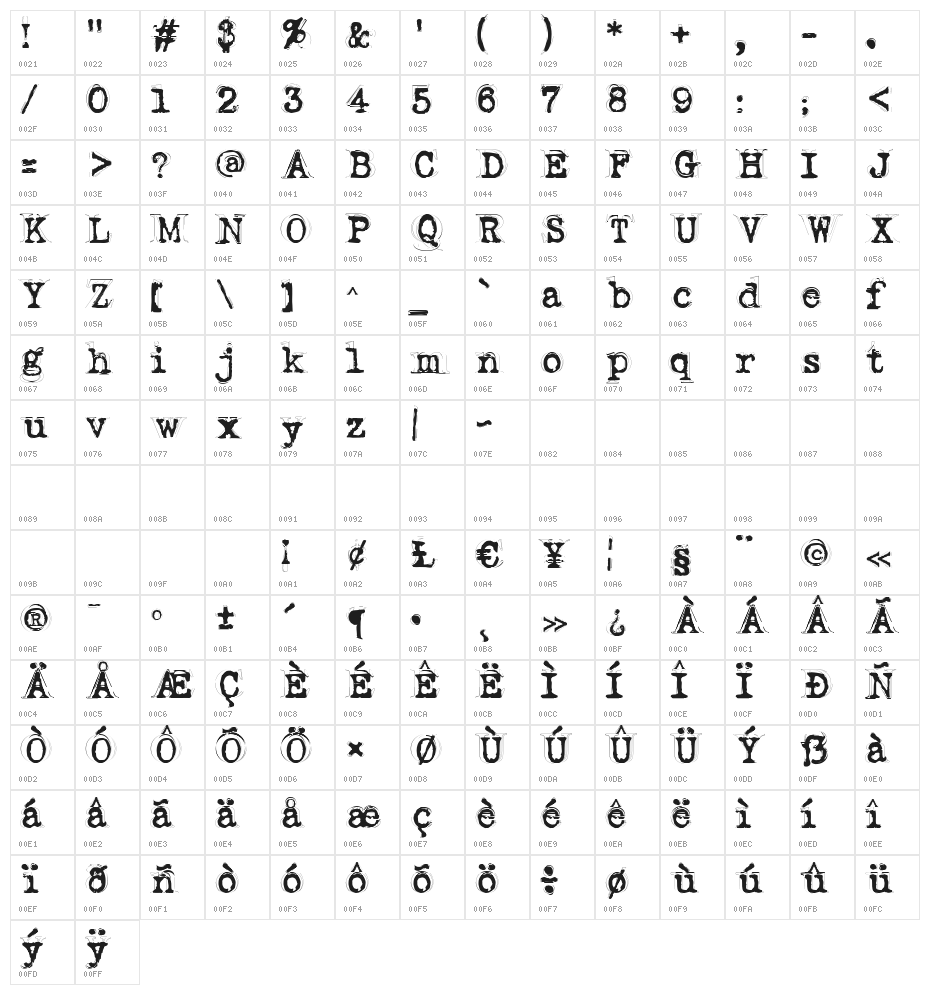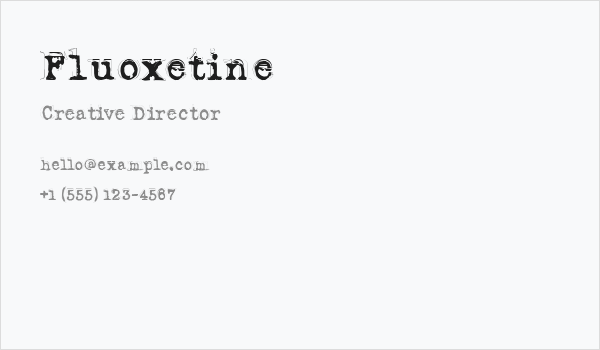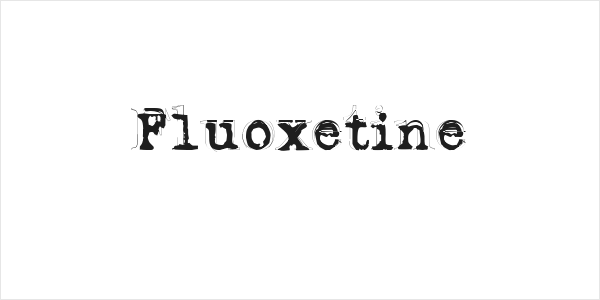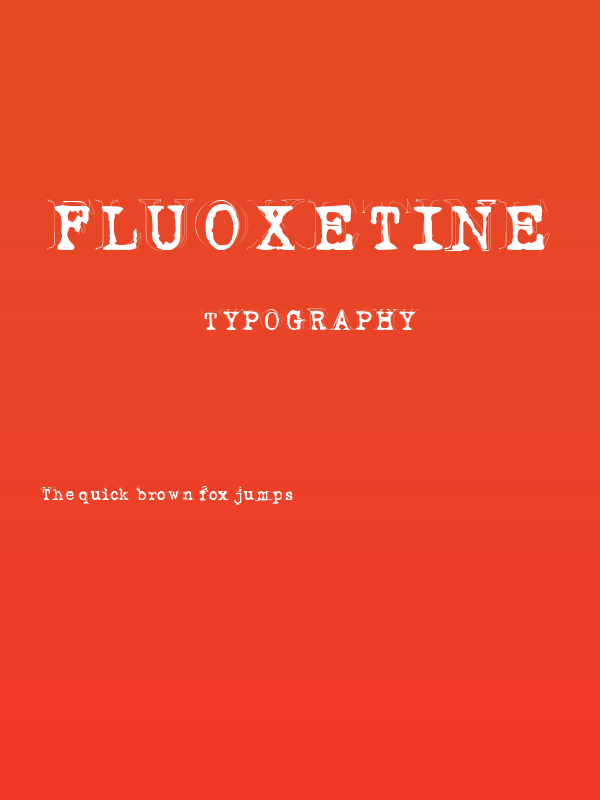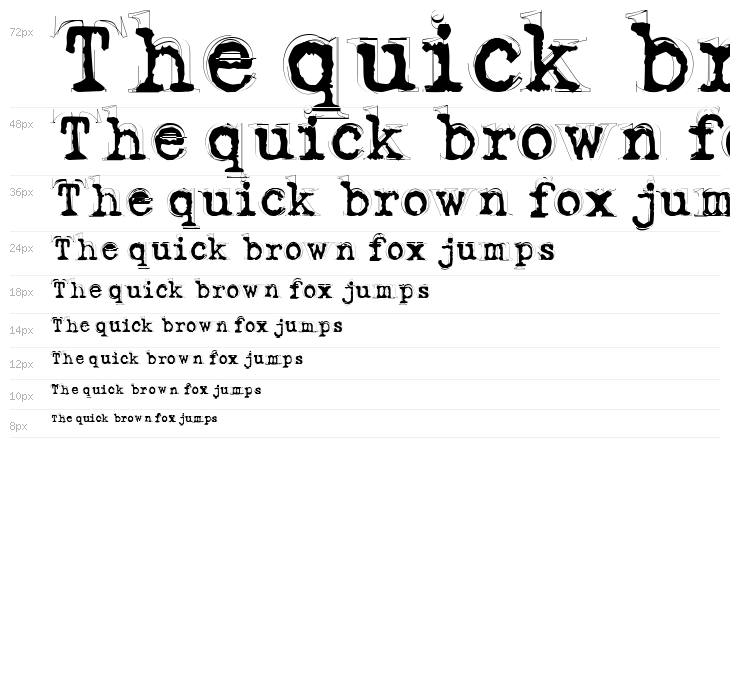
Fluoxetine Font
Fluoxetine Description
This font features a bold and artistic style with a distressed, grunge-like appearance. The characters are serifed, with a unique blend of traditional serif elements and modern, edgy design. Each letter has a textured, worn-out look, giving it a vintage feel while maintaining a contemporary edge. The uppercase and lowercase letters are well-balanced, with consistent spacing and alignment. The numerals and special characters follow the same design ethos, ensuring uniformity across all glyphs. This font is ideal for projects that require a bold statement with a touch of nostalgia and artistic flair.
Overall StyleVintage, Artistic
Proposed ProjectsIdeal for album covers, posters, branding, and any creative project needing a bold, artistic touch.